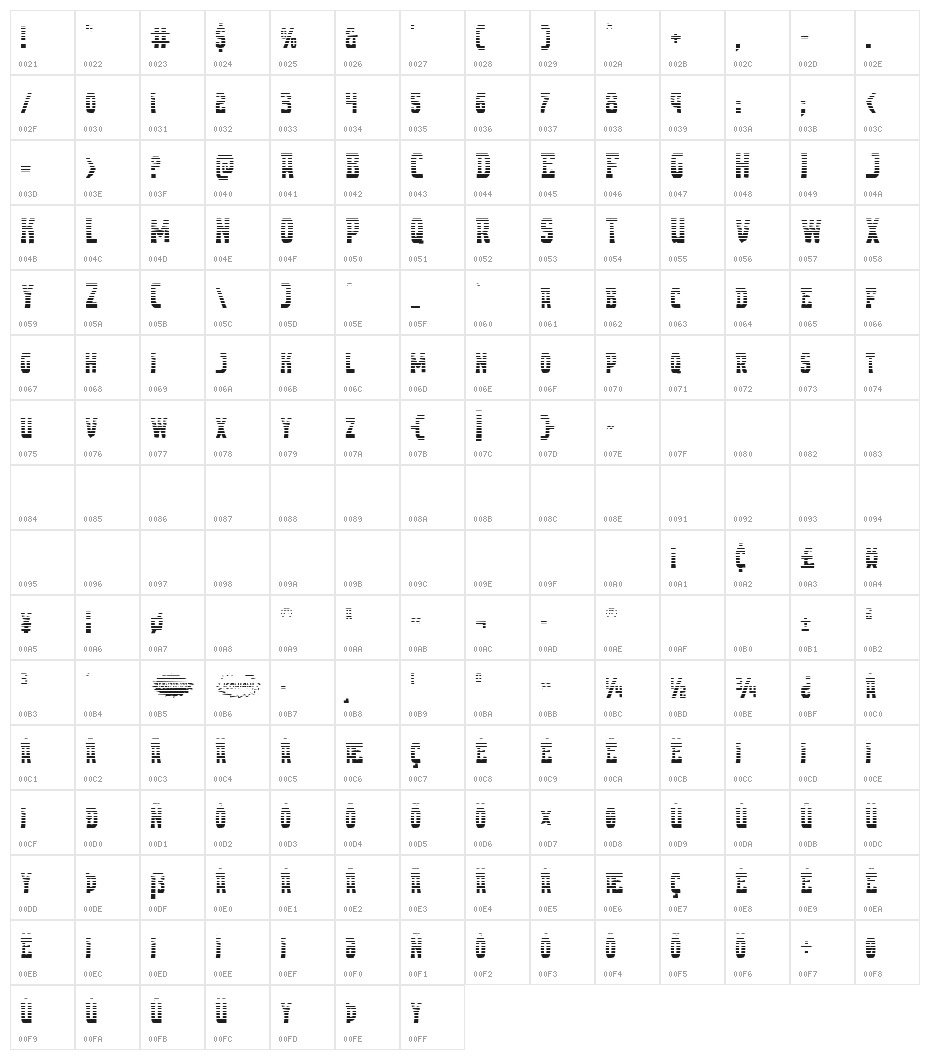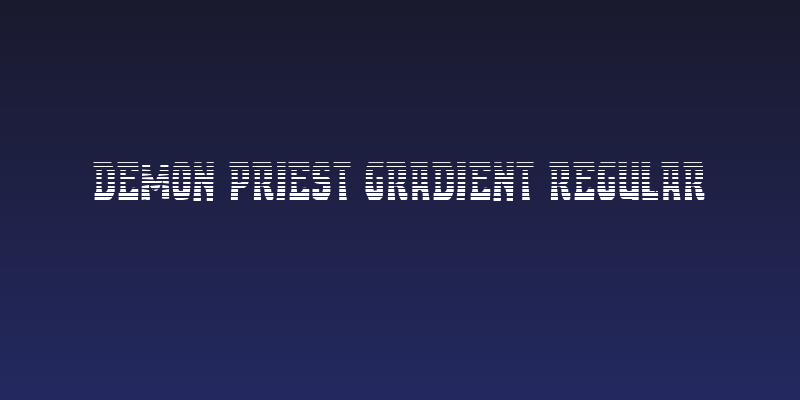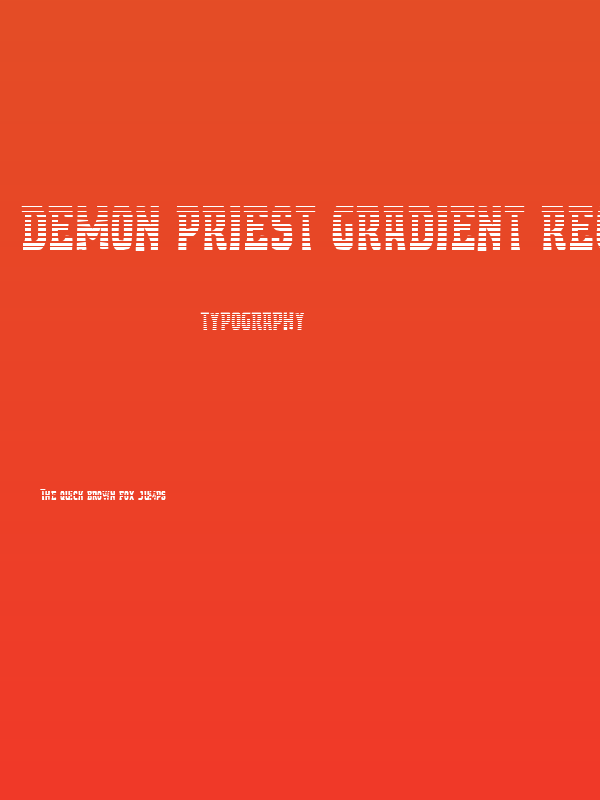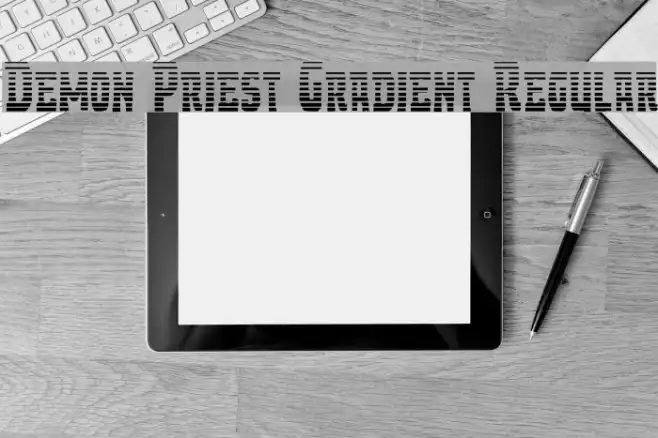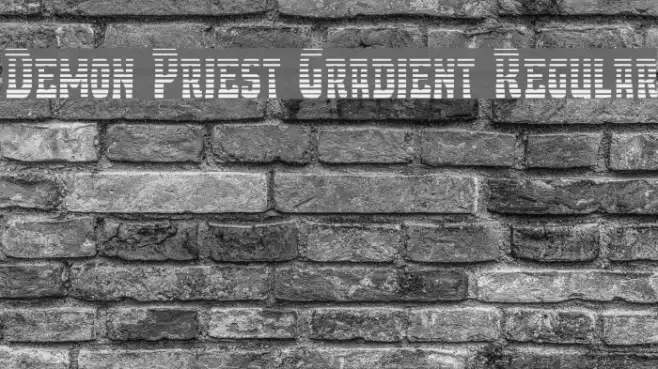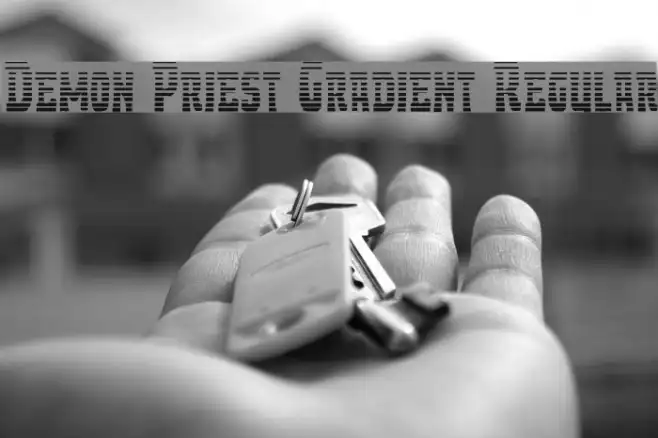
Demon Priest Gradient Regular Font
Demon Priest Gradient Regular Description
This font features a unique gradient effect within each character, creating a striking visual impact. The design is bold and modern, with a distinct horizontal line pattern that adds depth and texture. The uppercase and lowercase letters maintain a consistent style, while the numerals and special characters complement the overall aesthetic. The font's geometric structure and clean lines make it suitable for eye-catching designs.